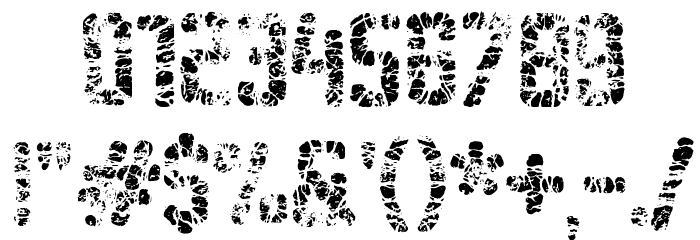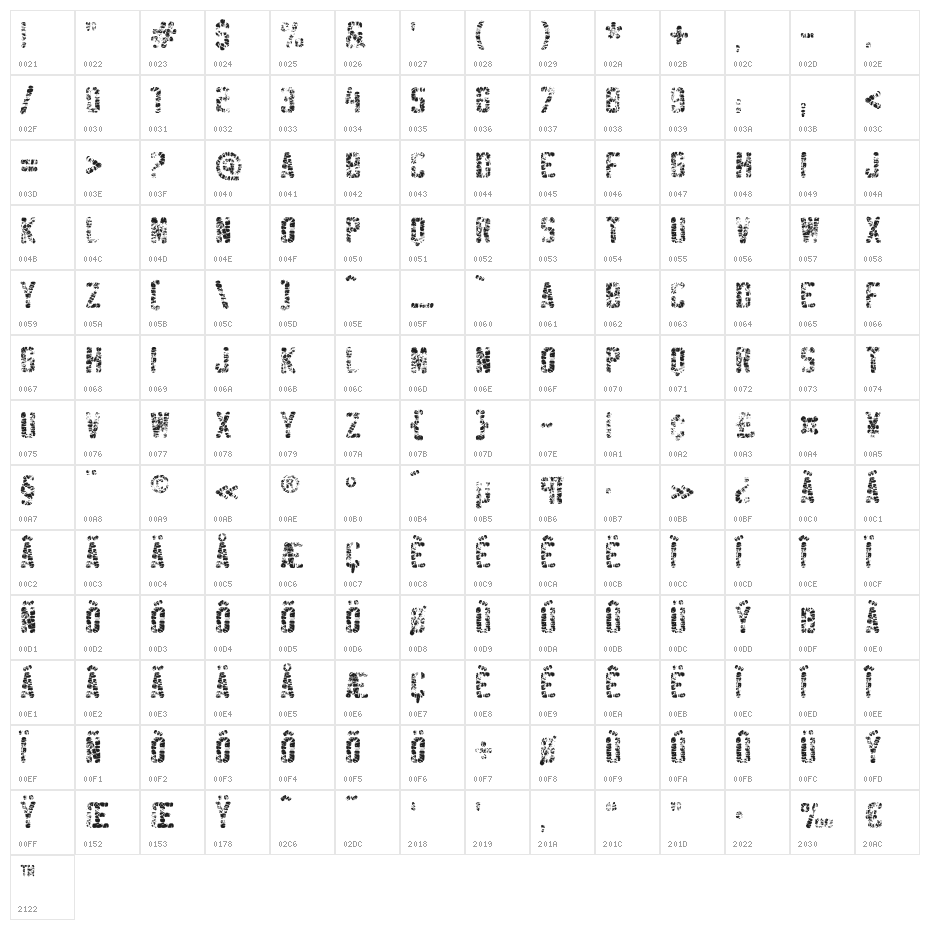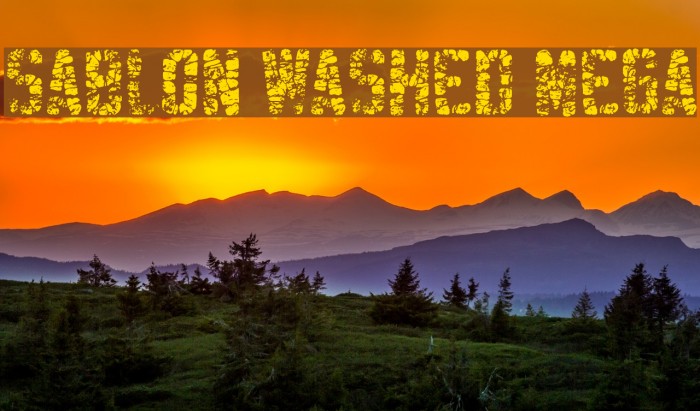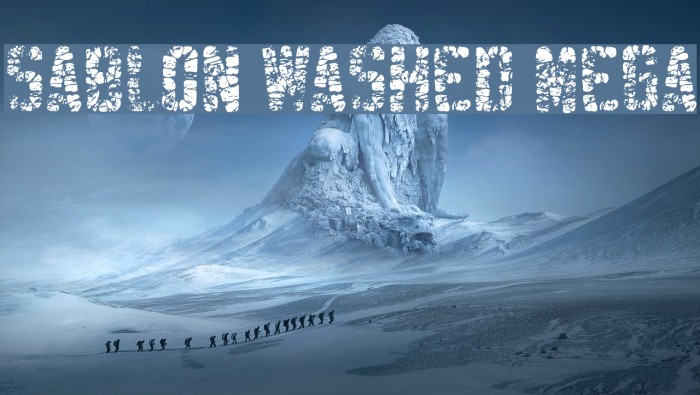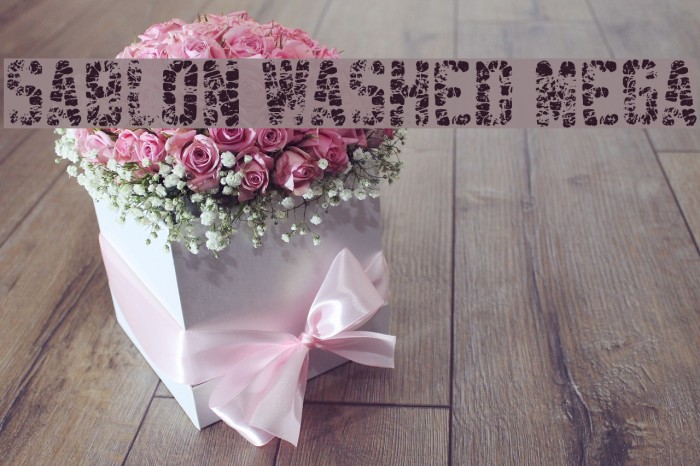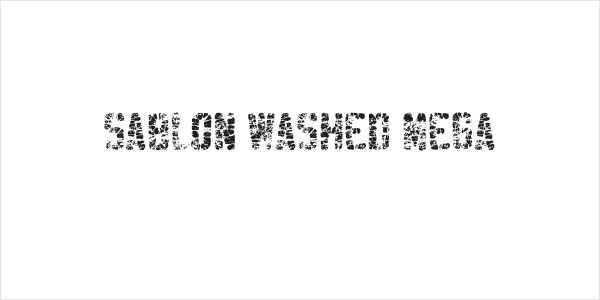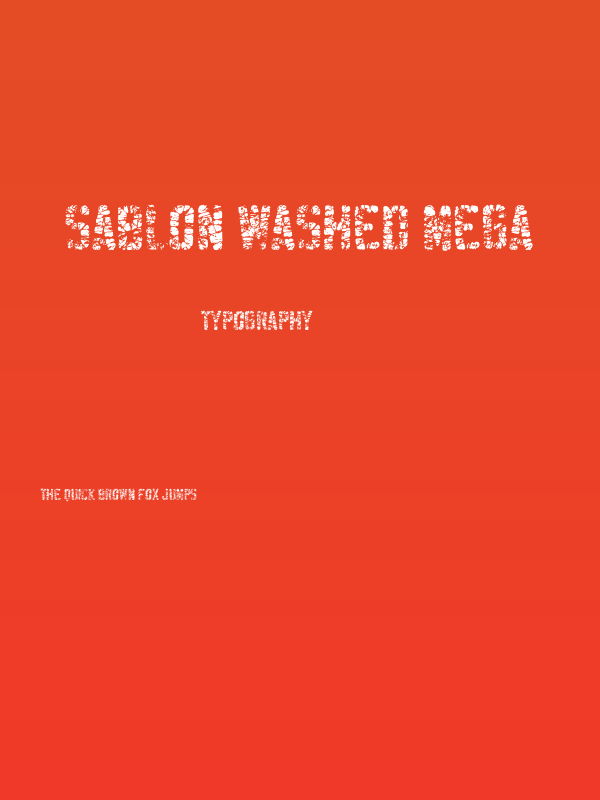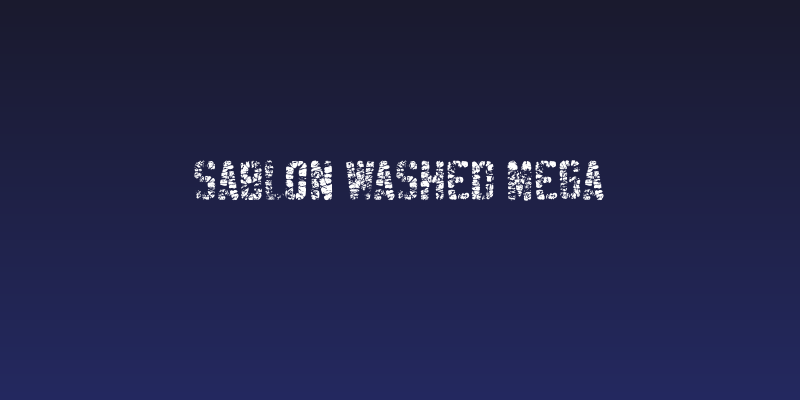
Sablon Washed Mega Font
Sablon Washed Mega Description
This font features a bold, distressed style with a textured appearance reminiscent of a washed-out or eroded surface. The characters are uppercase and lowercase letters, numbers, and a selection of special characters. The design gives off a rugged, vintage feel, making it ideal for projects that require a strong, impactful visual statement. The irregular texture adds a unique character to each letter, ensuring that the font stands out in any design context.
| Proposed Projects | Ideal for poster designs, album covers, branding for rustic or vintage-themed products, and any project needing a bold, textured aesthetic. |